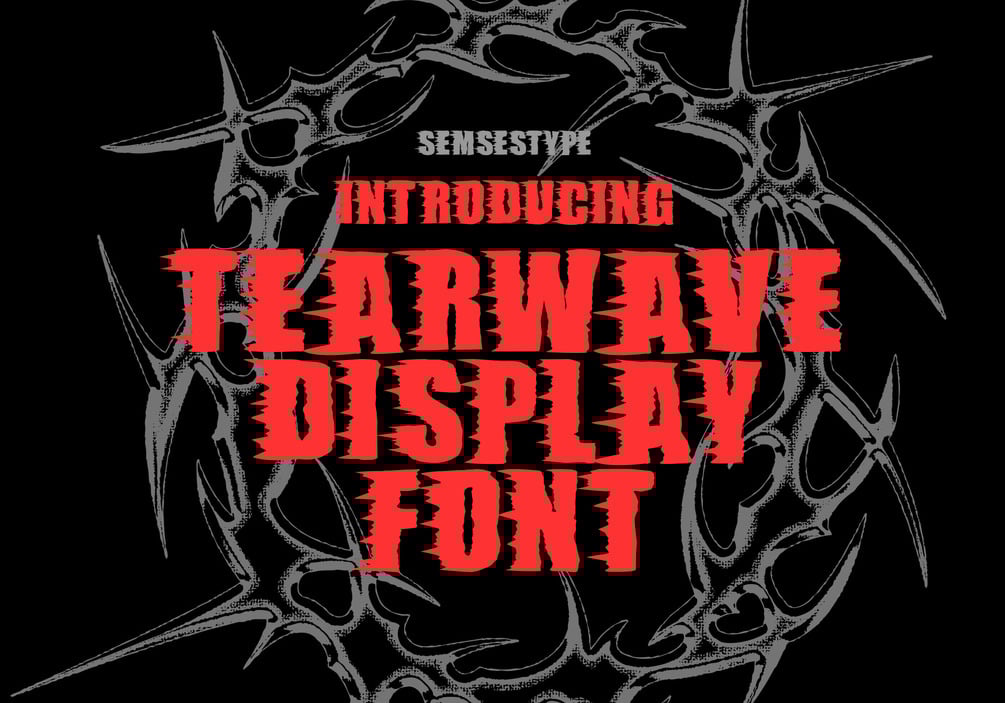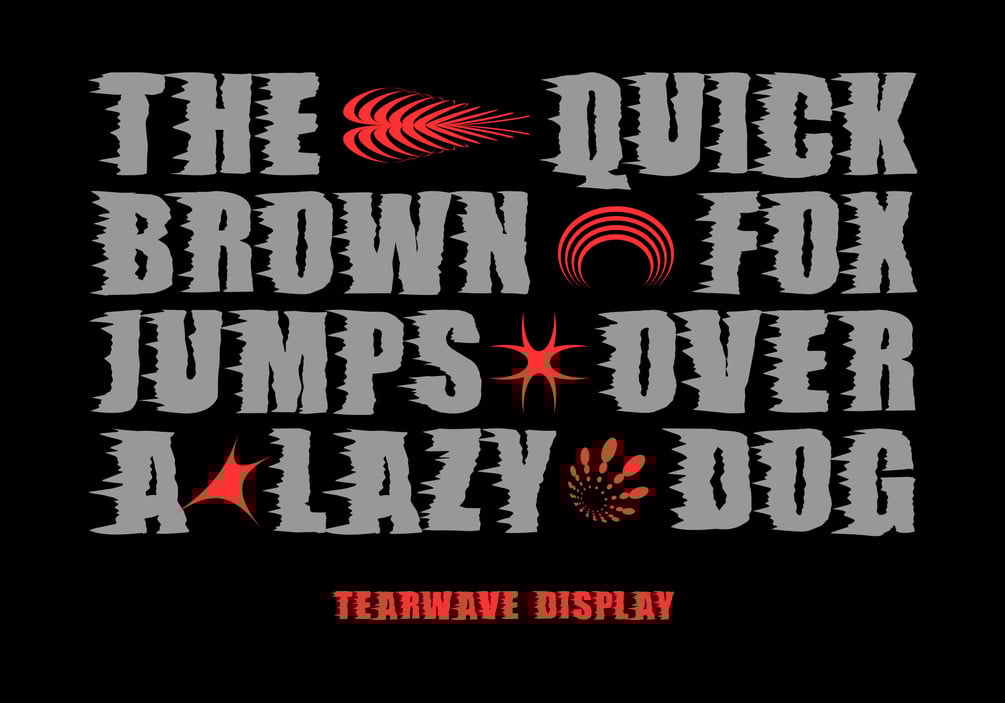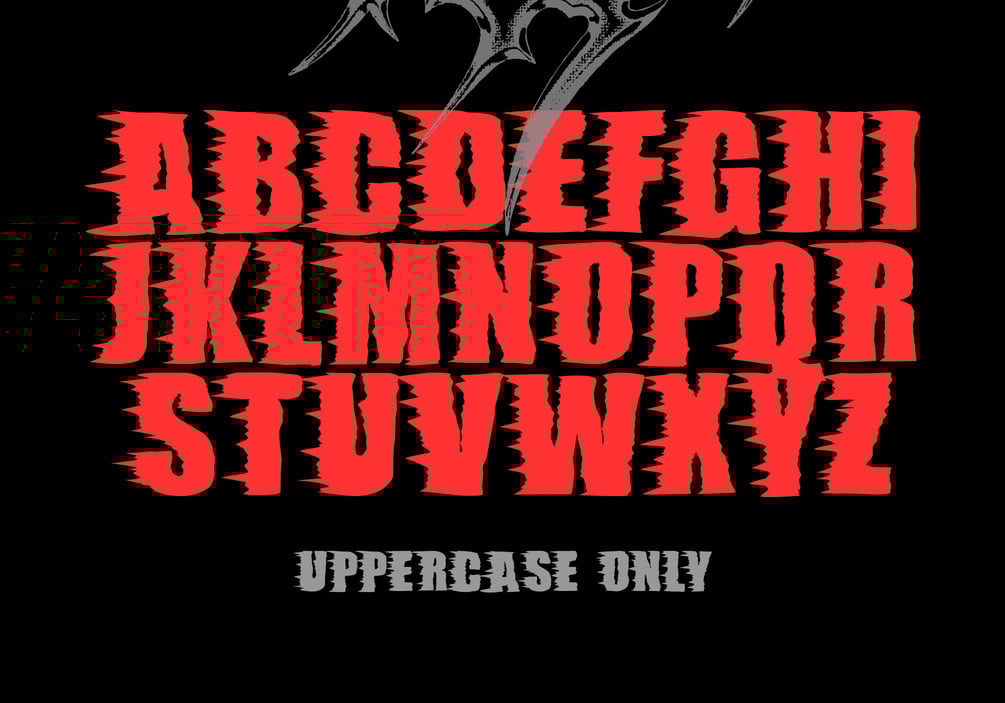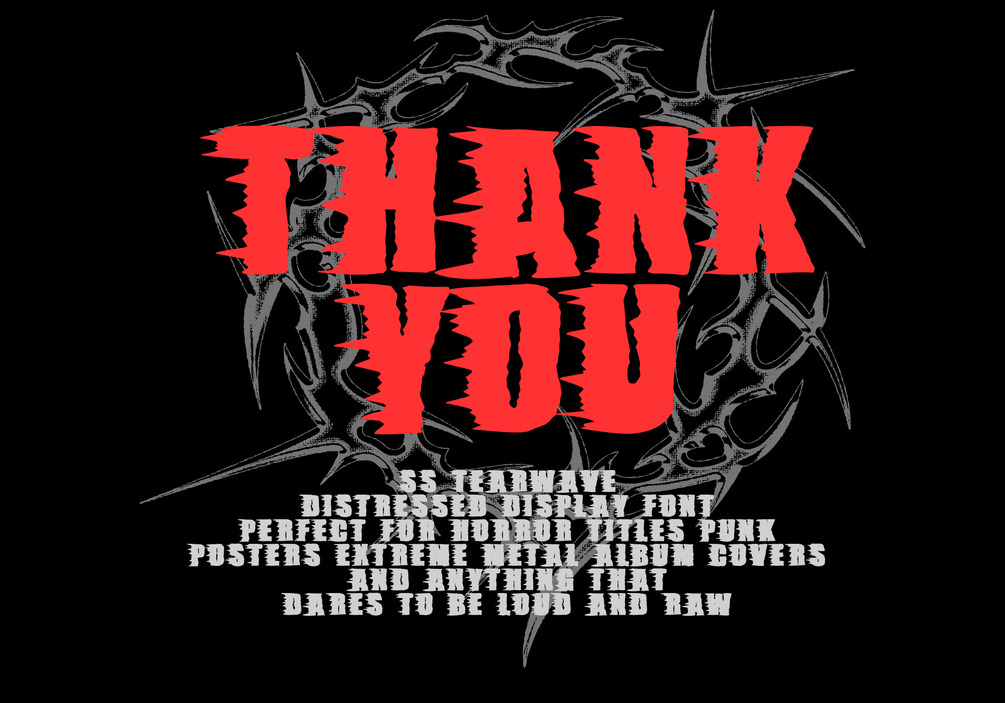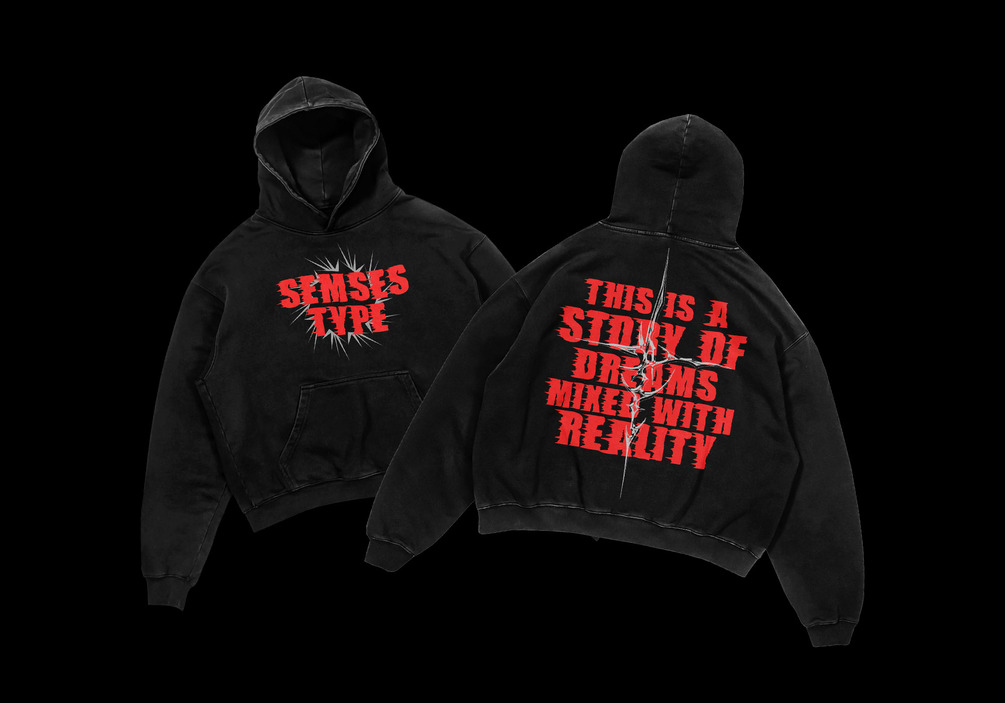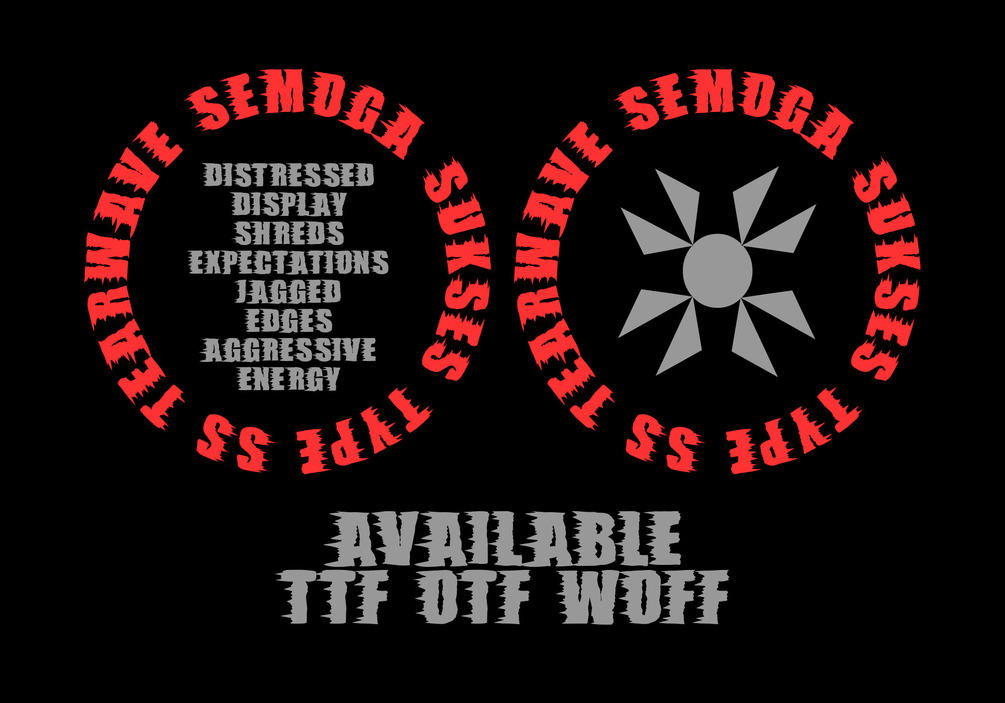
SS-Tearwave - Display Font
SS Tearwave - is a bold, distressed display font that shreds expectations. With jagged edges and aggressive energy, it's perfect for horror titles, punk posters, extreme sports branding, metal album covers, and anything that dares to be loud and raw.
Each letter looks as if it's been torn through by chaos itself — giving your designs a rebellious, high-impact attitude. Whether you're creating for Halloween, grunge aesthetics, or underground scenes.
Including ( 26 Glyph ) Uppercase Only